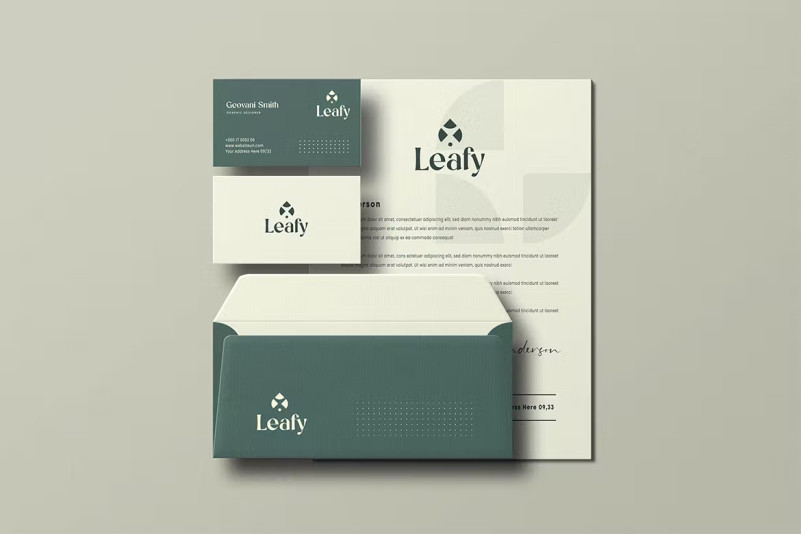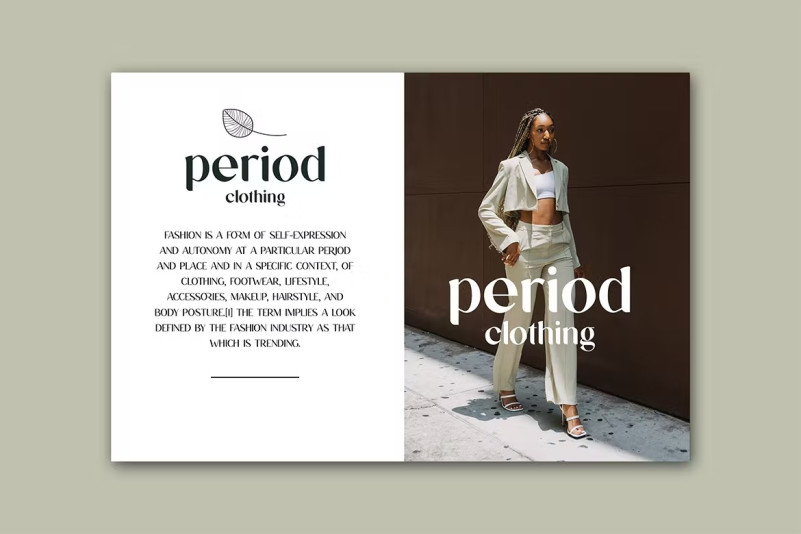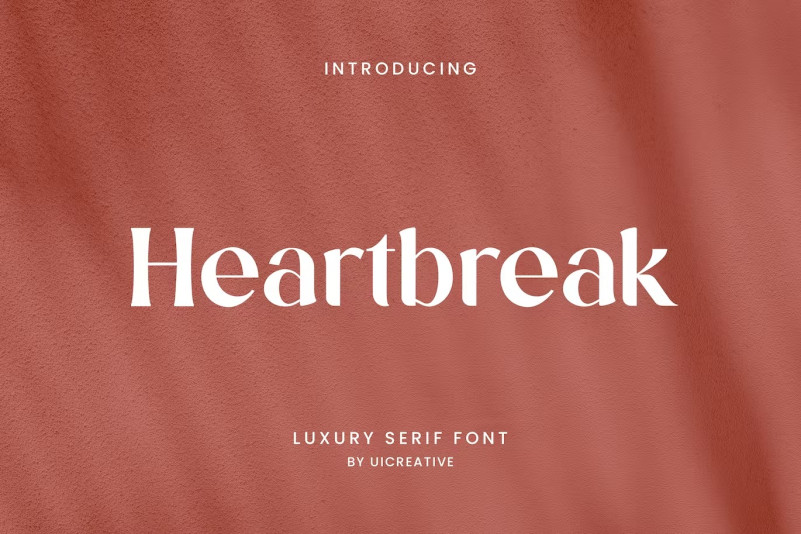
Heartbreak Font
Heartbreak Font – Luxury Serif Font . A modern Serif font that gives an impression of beauty, class, elegance and modernity. This font is perfect for a wide variety of projects, such as signature, stationery, logo, weddings, typographic quotes, magazine or book covers, website headers, apparel, branding, packaging design, etc. Additionally, fashion-related branding or editorial design exhibits both masculine and feminine qualities.